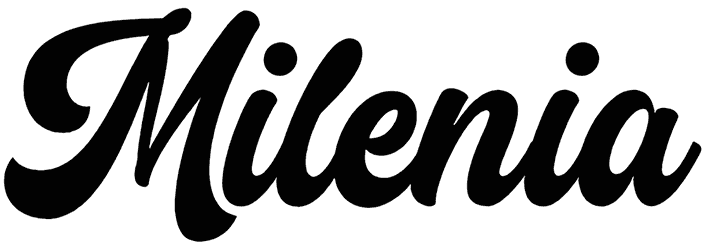
Milenia Font
Who can ignore the charm of retro and memorable words and not like this style of design? Milenia is a script font with bold and cool lettering that is capable of giving this mood to your novel project. With a distinct vibe, the Milenia font is an appealing choice for a lot of innovative ideas, such as posters, apparel, magazines, and so on.